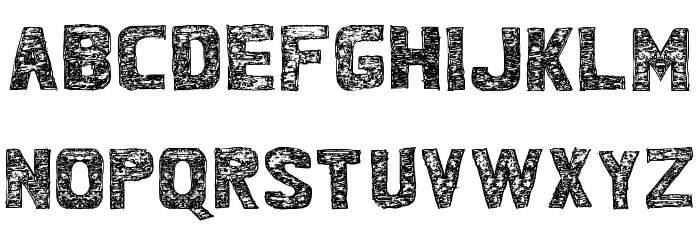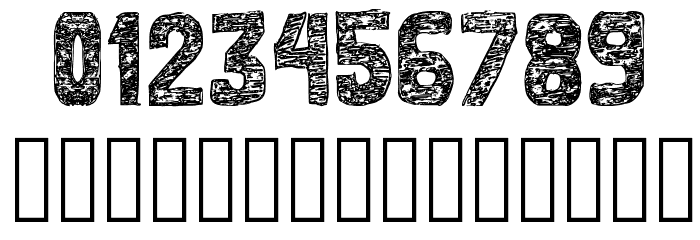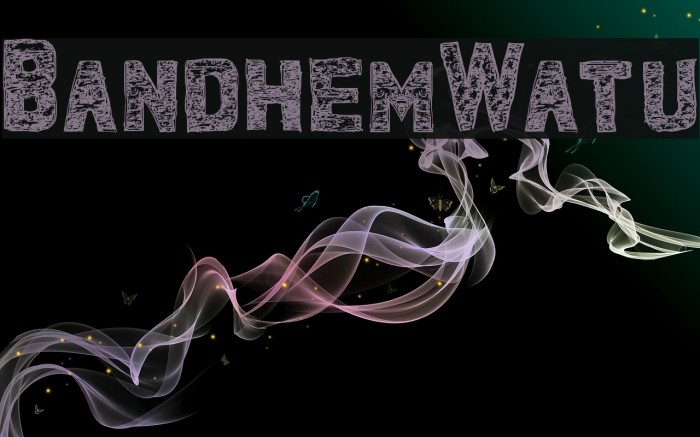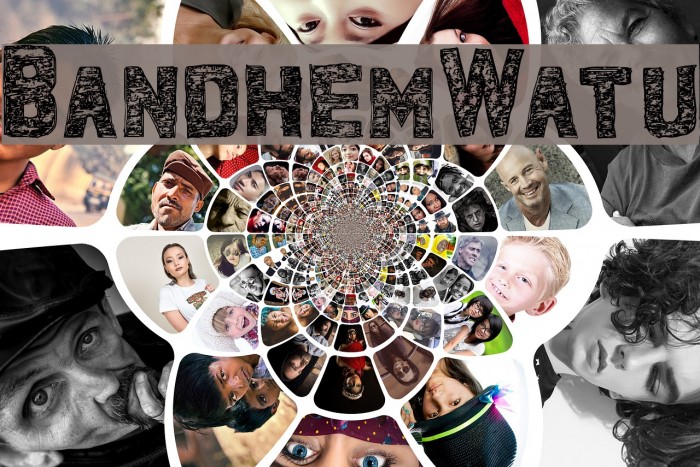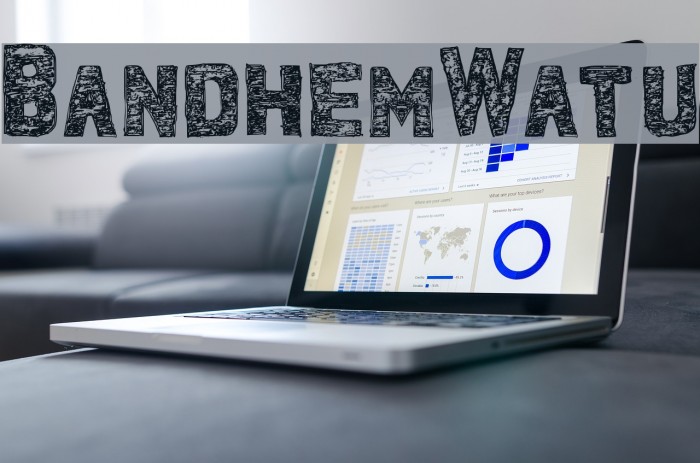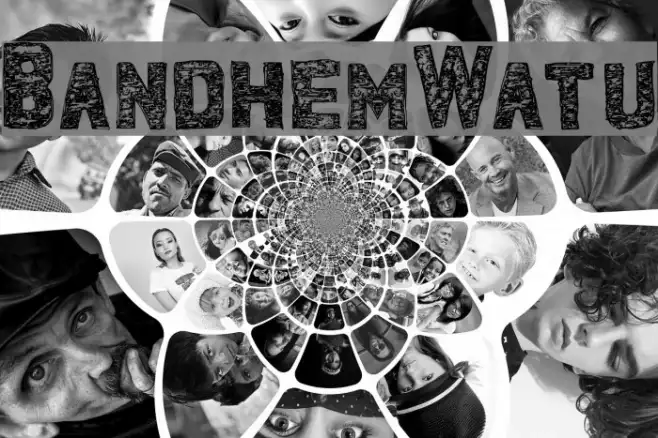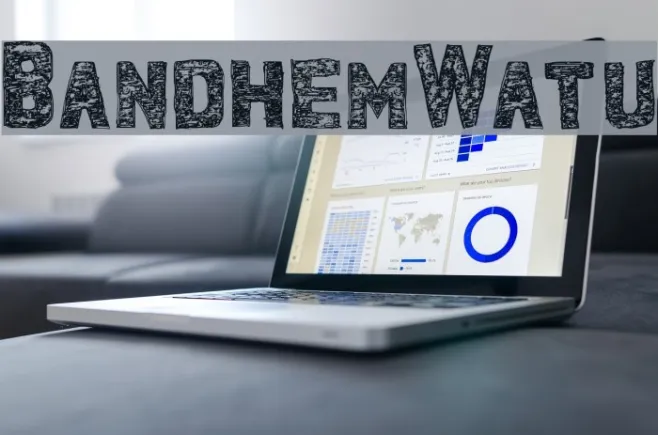
BandhemWatu Font
This font features a bold, textured design with a distressed, grunge-like appearance. Each character is filled with a pattern that gives it a rugged, worn-out look, reminiscent of vintage or industrial styles. The uppercase and lowercase letters maintain consistent thickness, while the numbers and special characters follow the same aesthetic, ensuring uniformity across all glyphs. The font's unique texture makes it stand out, adding a layer of depth and character to any design. Its boldness ensures readability while the intricate details provide a distinctive visual appeal.
A bold, textured font with a distressed, vintage appearance.
- Proposed Projects: Ideal for posters, album covers, branding projects, and any design requiring a bold, vintage touch.
- Overall Style: Vintage